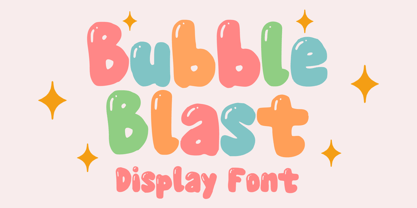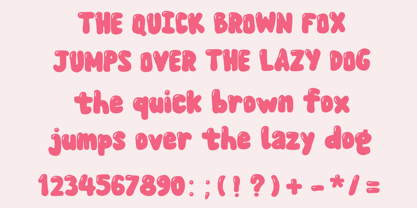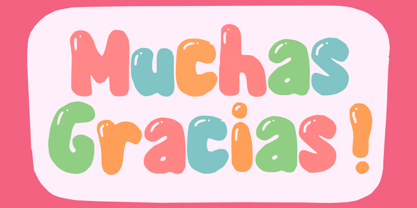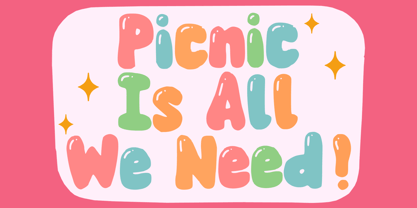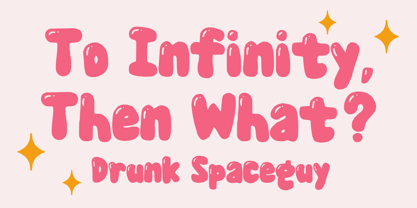
Bubble Blast
by Mvmet
The Bubble Blast Font Family was designed by Gabriel Valentinus and published by Mvmet. Bubble Blast contains 1 styles. More about this family
Introducing Bubble Blast, a delightful and whimsical handcrafted bubble font inspired by the charming world of comics and animation. This versatile font is perfect for elevating a wide range of design projects, making it ideal for creative pursuits such as standout stickers, trendy tee-shirt designs, impressive logos, captivating magazine covers, engaging book jackets, and lively cartoon illustrations. Even for everyday typing, Bubble Blast adds an extraordinary flair to your work. Infuse a spectacularly refreshing touch into your designs with Bubble Blast, and experience the magic of a font that transforms everything it touches into a masterpiece!
Designers: Gabriel Valentinus
Foundry: Mvmet
Mvmet is an Indonesia-based font studio which began making fonts in early 2020. Mvmet strives to make fonts fun and accessible for both the average computer user and professional designers, with original experimental fonts and affordable trend-setting commercial fonts. Mvmet also creates custom fonts for companies who want exclusive rights and a specific design for a typeface. Clients who have used Mvmet’s custom font services include some company in Indonesia and abroad.